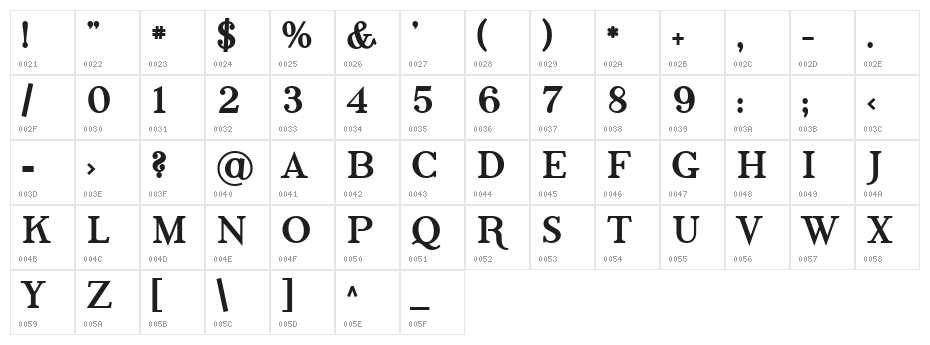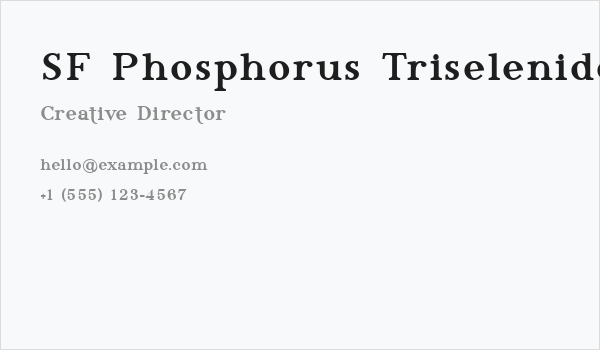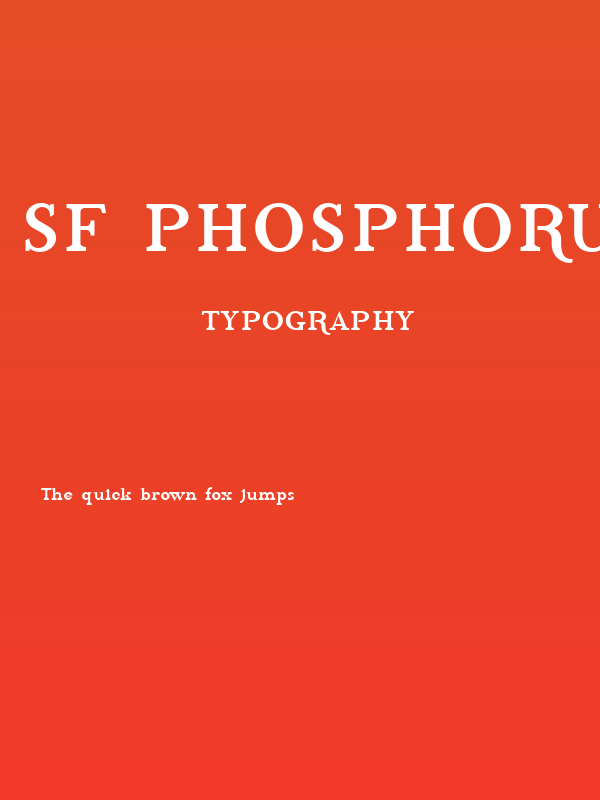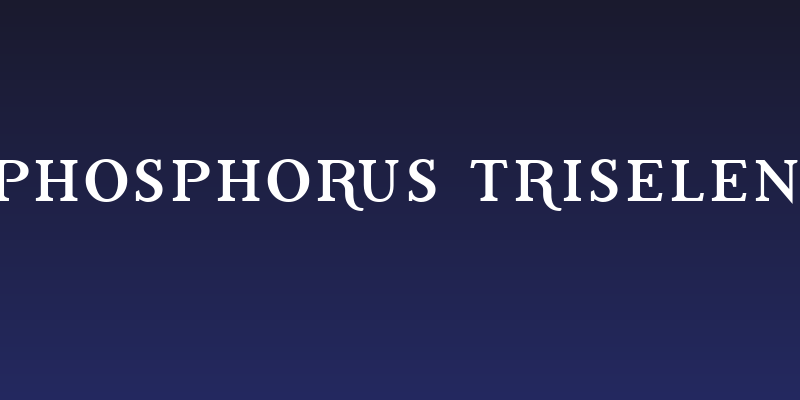
SF Phosphorus Triselenide Font
SF Phosphorus Triselenide Description
This font features a classic serif design with a strong presence and a traditional feel. The serifs are pronounced, adding a sense of formality and elegance. The uppercase letters are bold and commanding, while the lowercase letters maintain a consistent style with slightly rounded edges, providing a softer touch. The numerals are well-proportioned, ensuring readability and balance. Special characters are designed with the same attention to detail, making them suitable for a variety of uses. Overall, this font exudes a timeless quality, making it versatile for both modern and traditional applications.
| Proposed Projects | Ideal for editorial design, book covers, formal invitations, and branding projects that require a touch of elegance. |